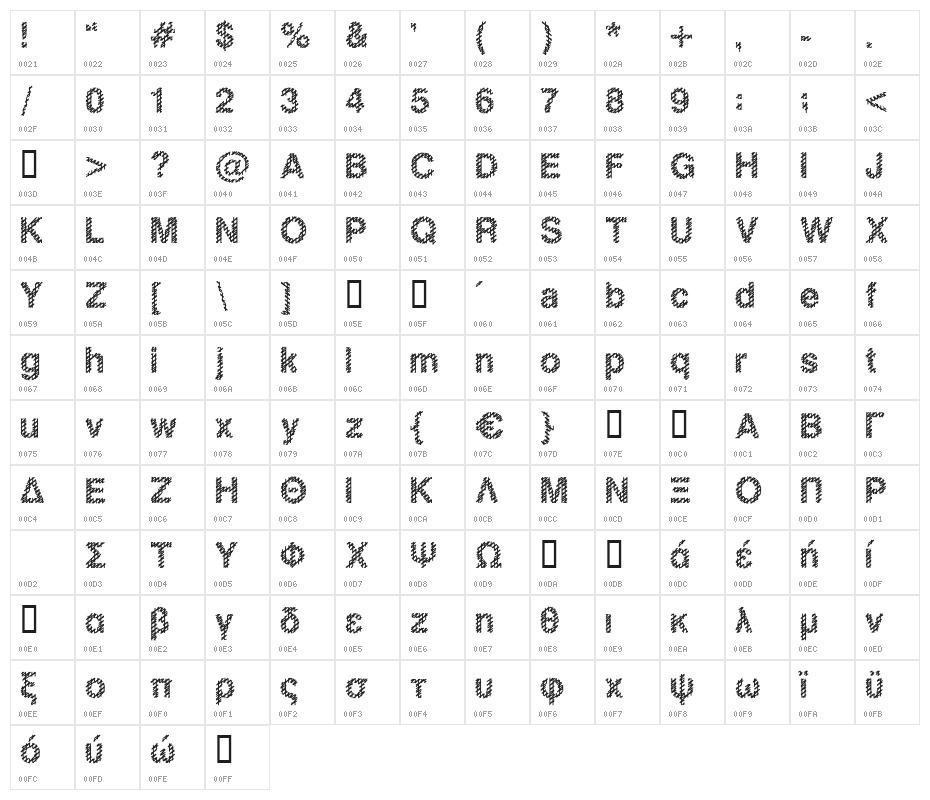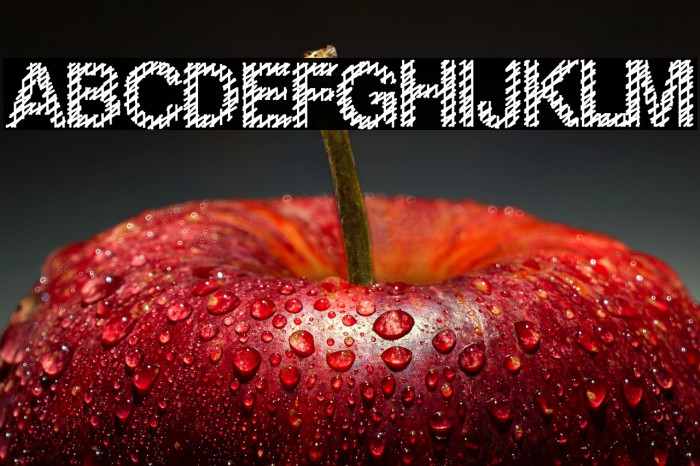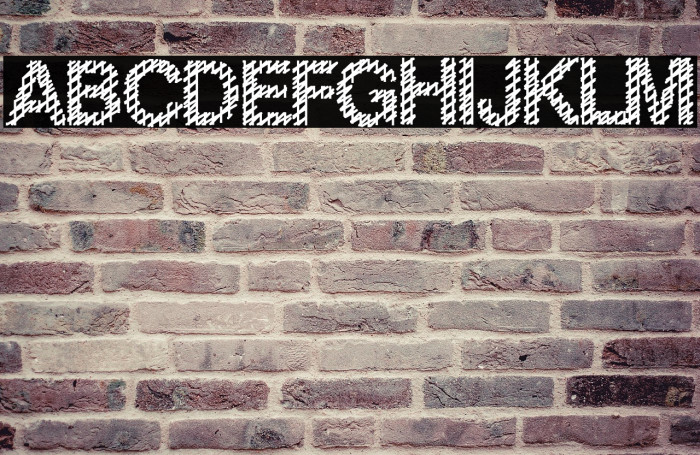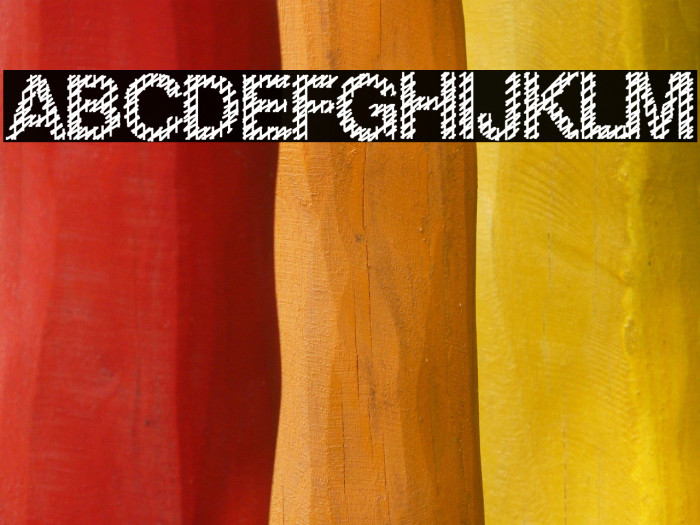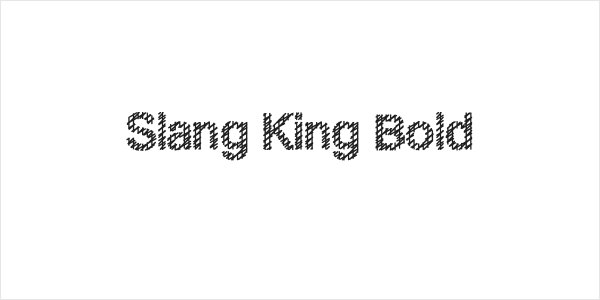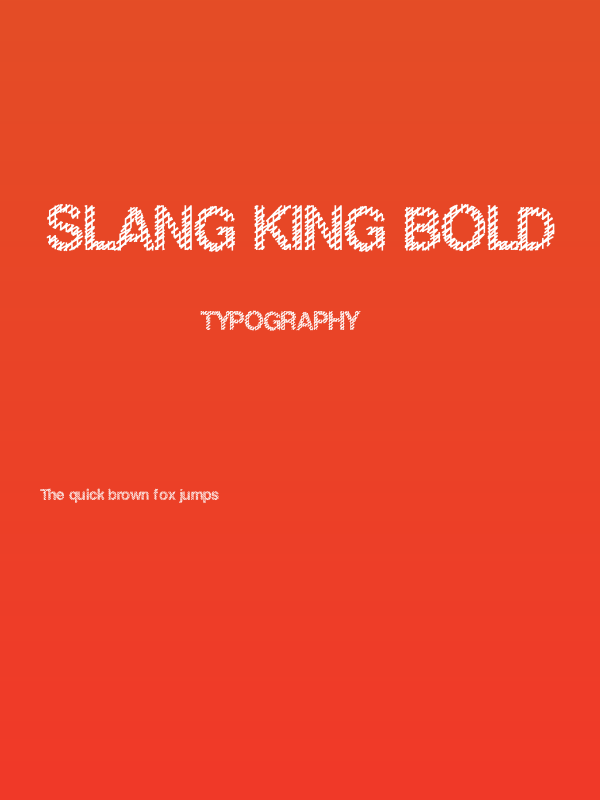
Slang King Bold Font
Slang King Bold Description
This font features a bold and dynamic design with a distinct diagonal crosshatch pattern filling each character. The uppercase and lowercase letters maintain a consistent style, creating a cohesive look. The numerals and special characters are equally bold, ensuring readability and impact. The unique texture adds a sense of movement and energy, making it ideal for eye-catching designs. The font's playful yet structured appearance makes it versatile for various creative projects.
| Proposed Projects | Ideal for posters, branding, album covers, and any project requiring a bold, artistic touch. |